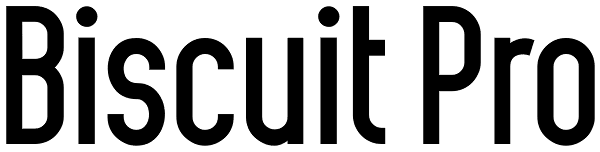
Biscuit Pro
Biscuit is a rounded unique typeface, clearly and easy readable with upper- and lowercase. Perfectly applicable for big or bold tekst pages. This font family has an excellent legibility - both in print and on the web - and an optimized kerning...